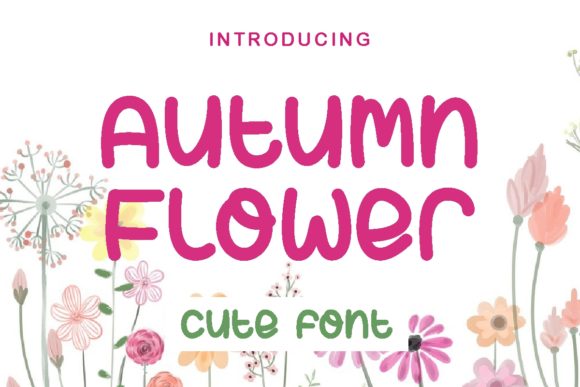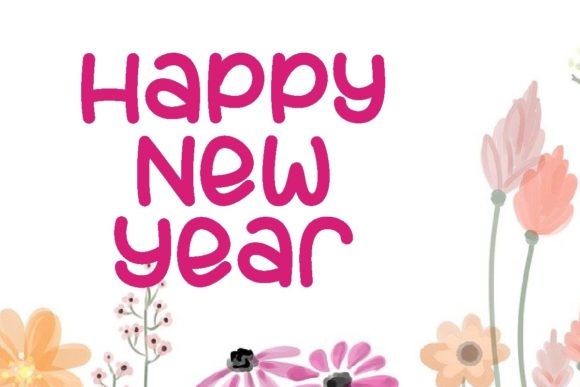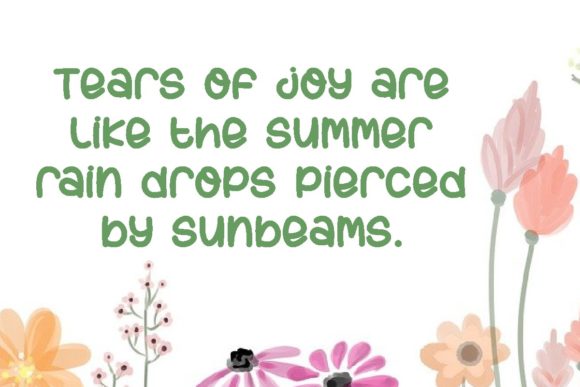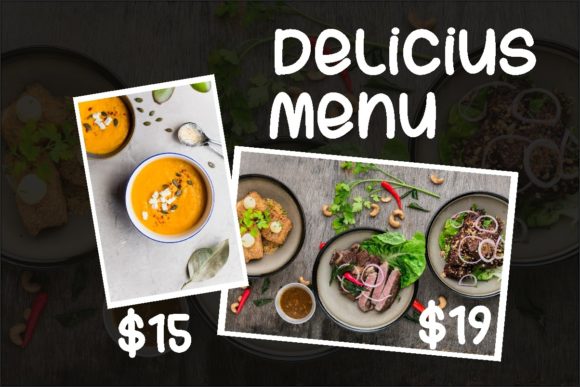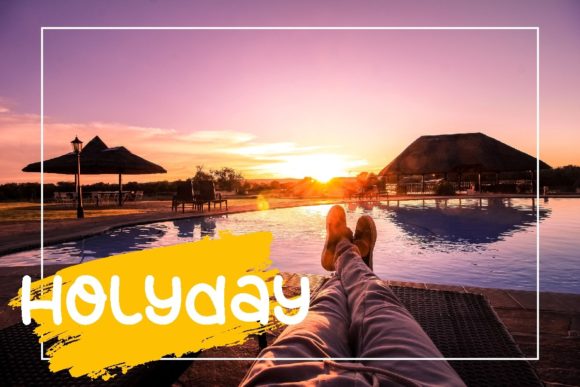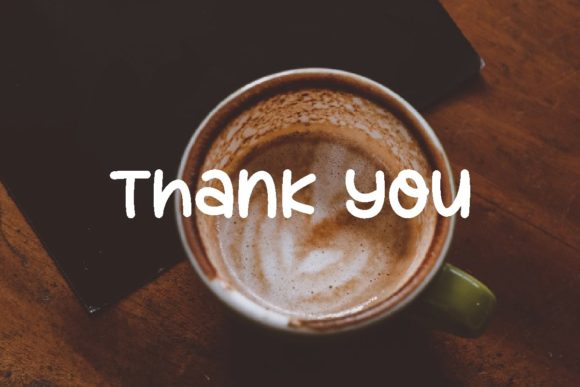
Autumn Flower Font
About Autumn Flower Font
Autumn Flower is a clean and jolly handwritten font. Whatever the topic, this font will be a wonderful asset to your font library, as it has the potential to enhance any creation.